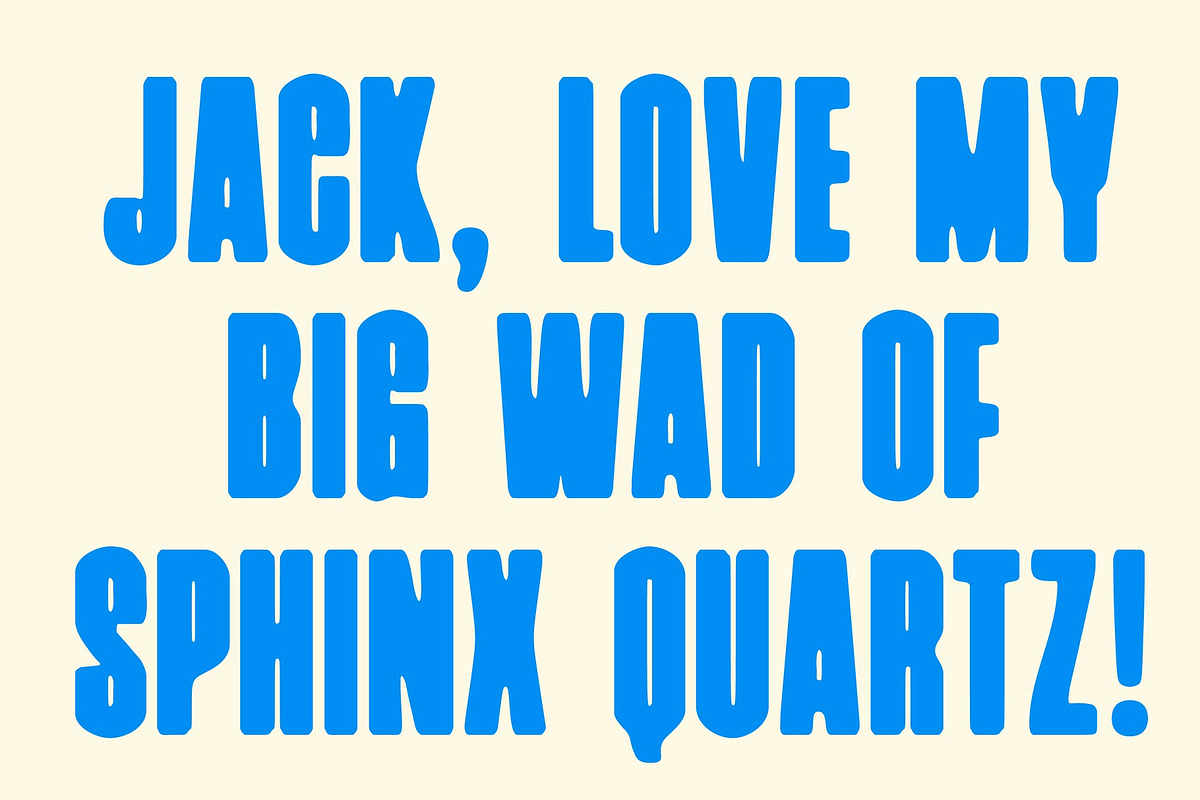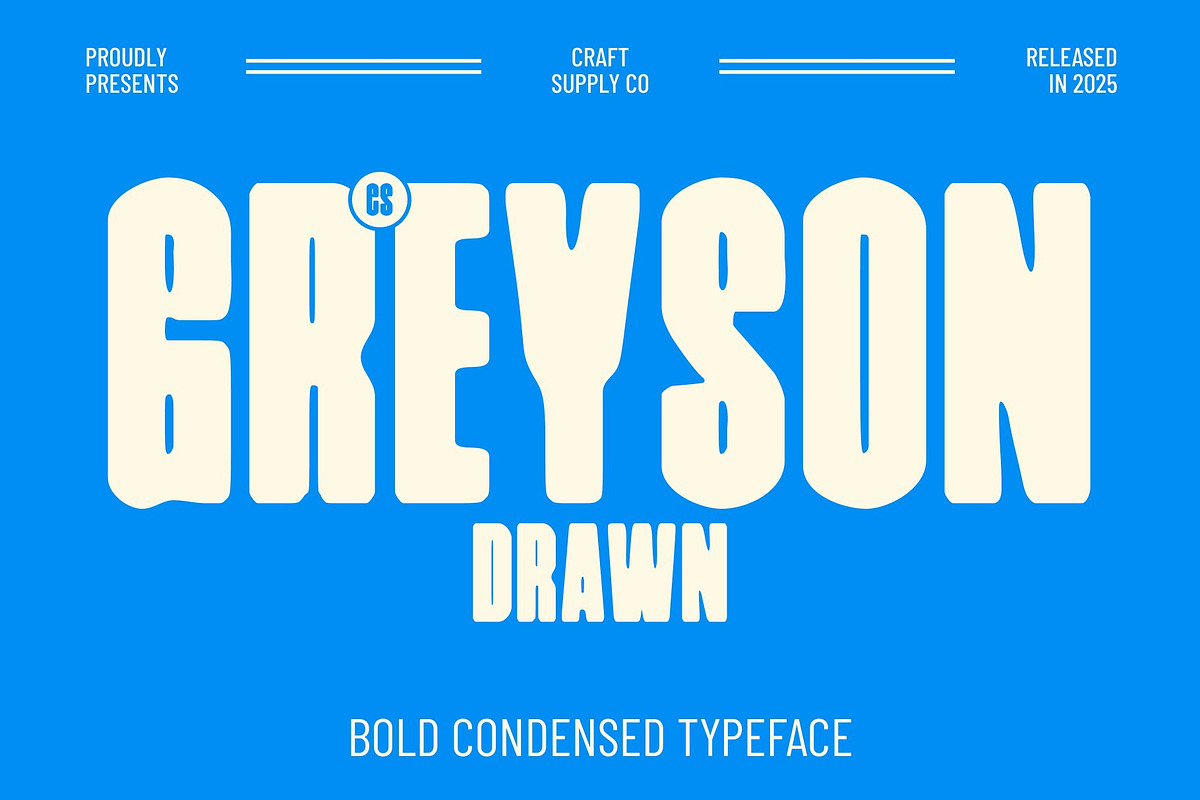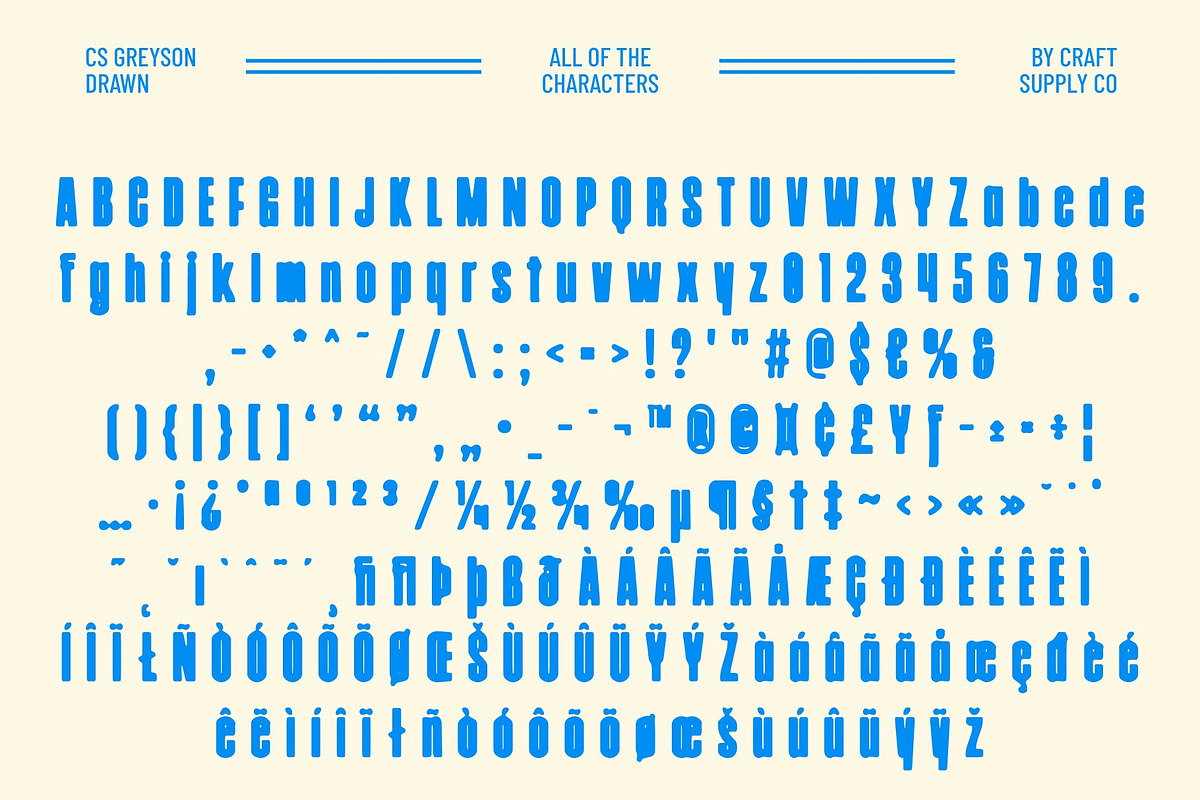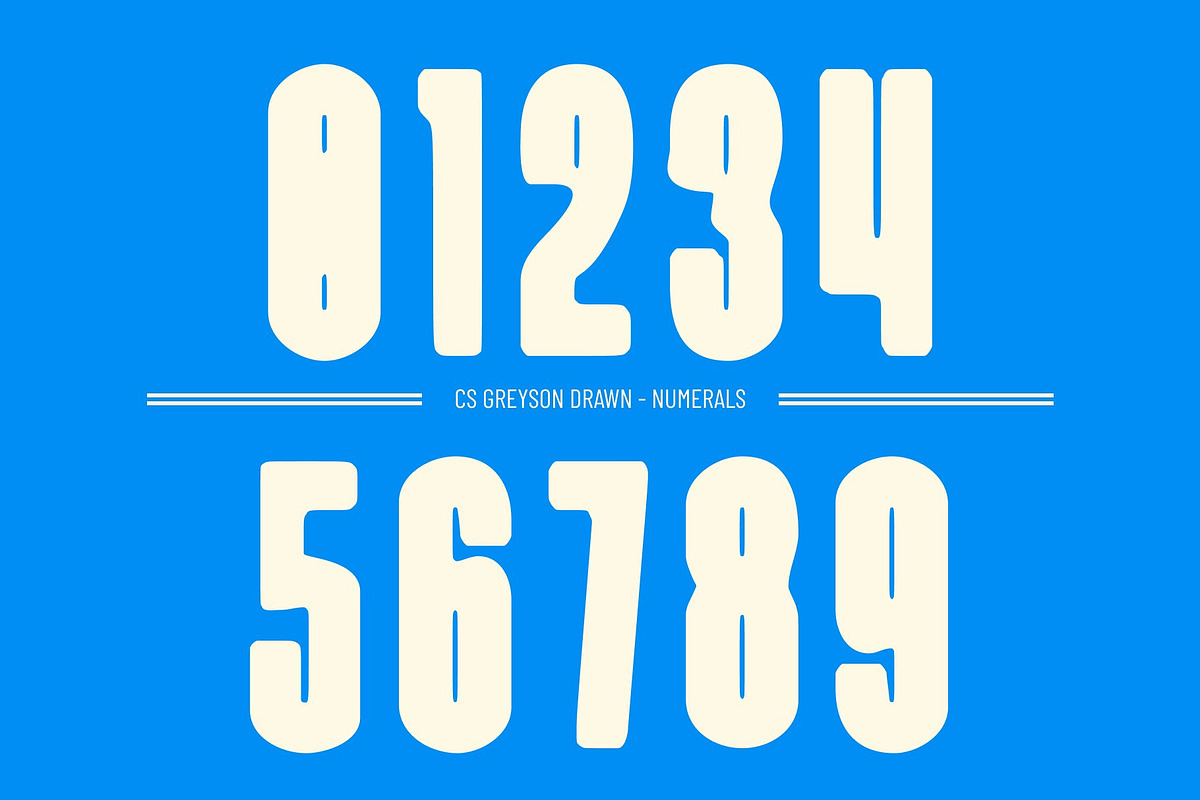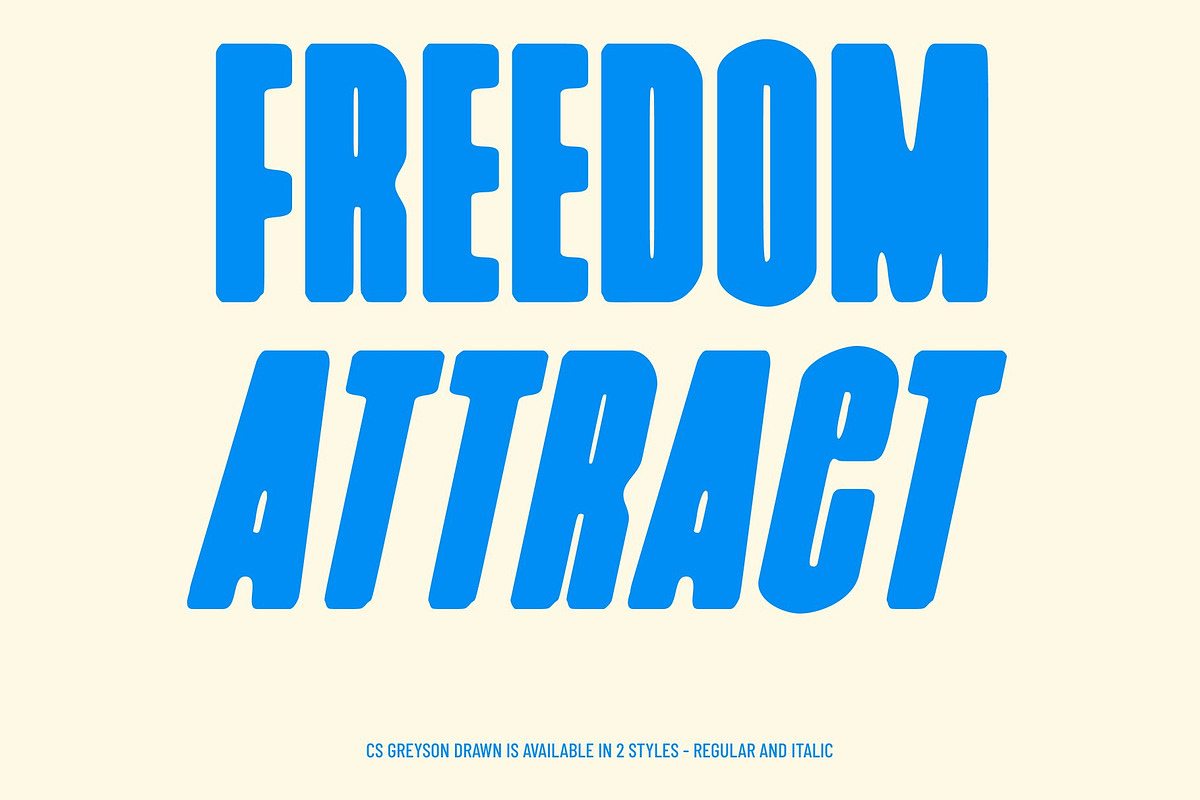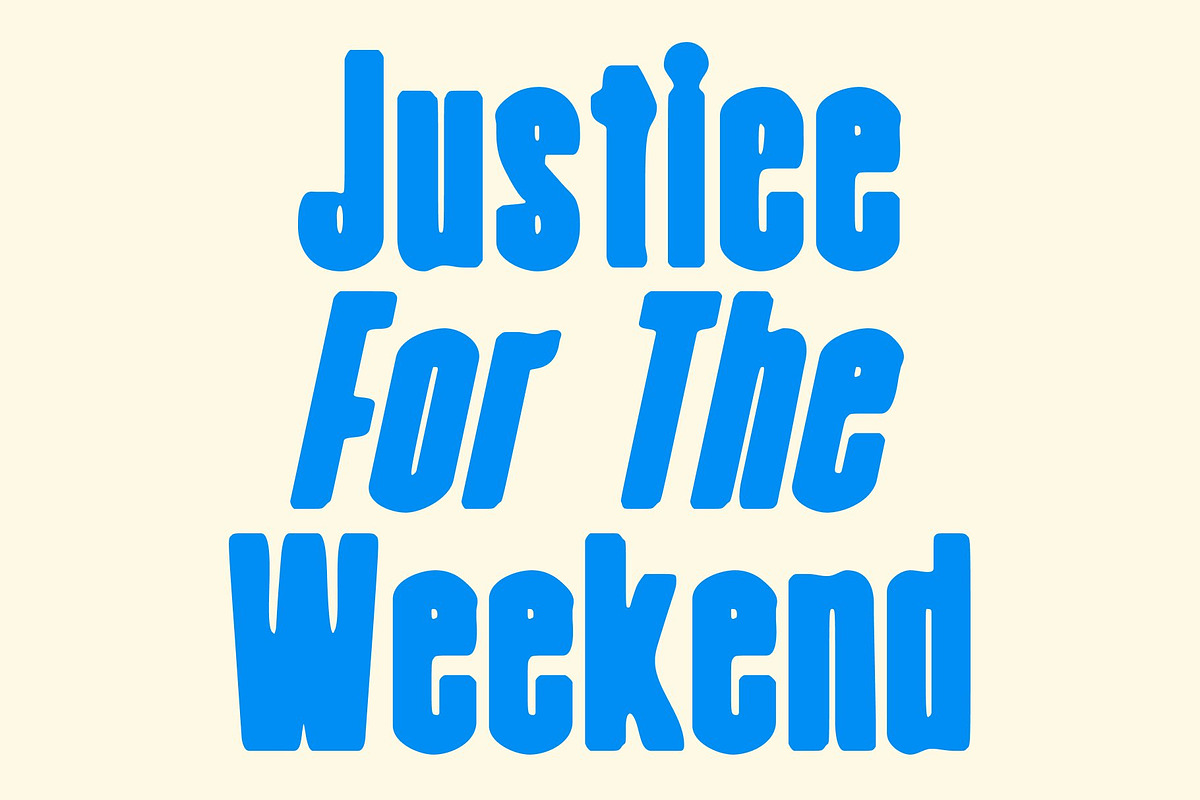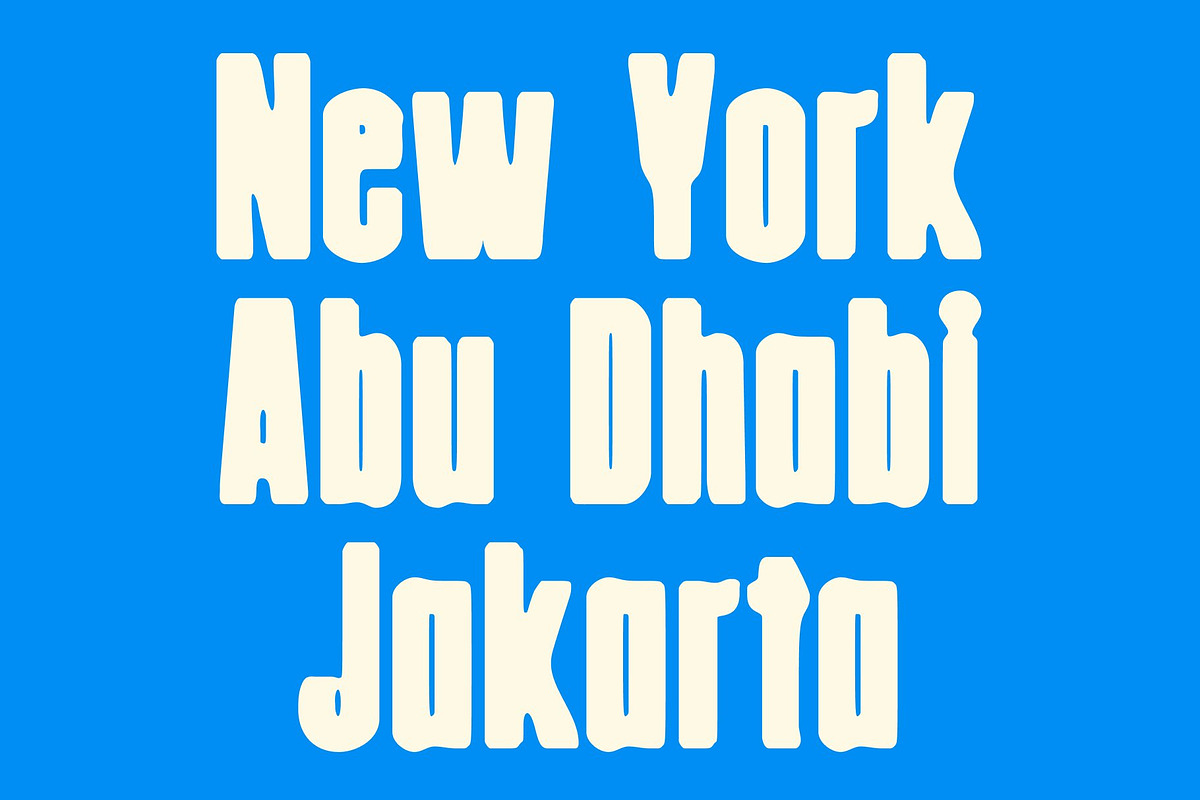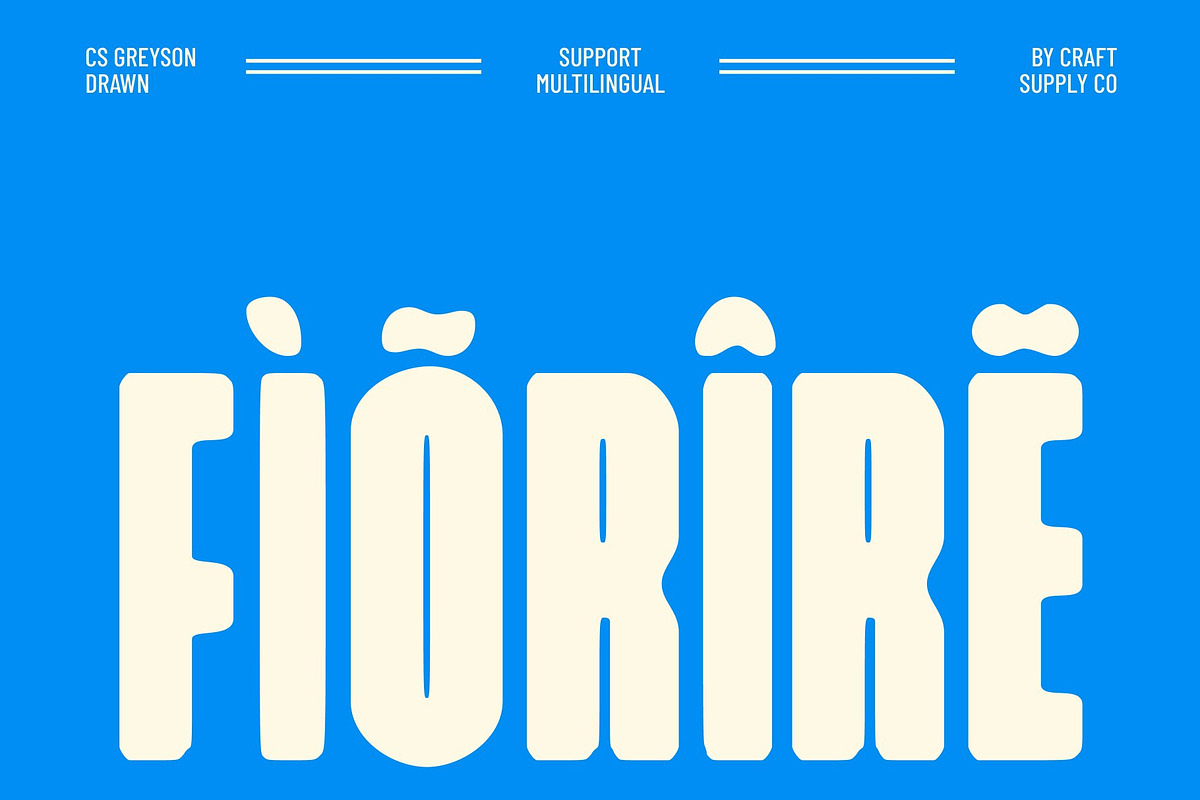
CS Greyson Drawn
CS Greyson Drawn – Condensed Font with Bold Confidence
Bold Condensed Sans Serif with Drawn Texture This is a modern condensed sans serif font that combines bold construction with a distinctive hand-drawn character. Designed to project confidence and strength, this font features narrow proportions and solid strokes enhanced by subtle drawn details. The result is a powerful display font that feels modern, expressive, and visually commanding while maintaining a clean and professional foundation.
Strong Structure for Maximum Impact The condensed form of allows designers to achieve maximum visual impact in minimal space. Its tall, narrow letterforms create a tight and efficient layout, making it ideal for headlines, branding, posters, and typographic systems where space efficiency is essential. The bold weight ensures strong visibility, helping messages stand out clearly and decisively in competitive visual environments.
Confident Tone with Handcrafted Personality This font delivers an assertive and confident voice, reinforced by its bold sans serif structure. The drawn texture introduces organic imperfections that add warmth and personality, preventing the font from feeling too rigid or mechanical. This balance between strength and human touch makes the font feel approachable yet authoritative perfect for modern branding that values authenticity.
Versatile Font for Contemporary Design Highly adaptable across digital and print media, performs beautifully in corporate branding, editorial titles, social media graphics, packaging, and event promotions. Its bold presence enhances legibility at larger sizes, while the condensed width keeps layouts clean and efficient.